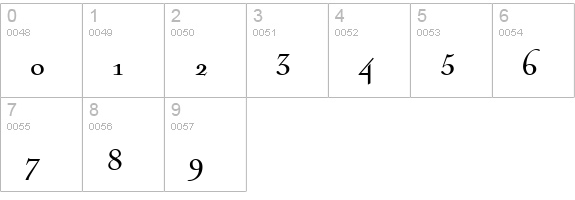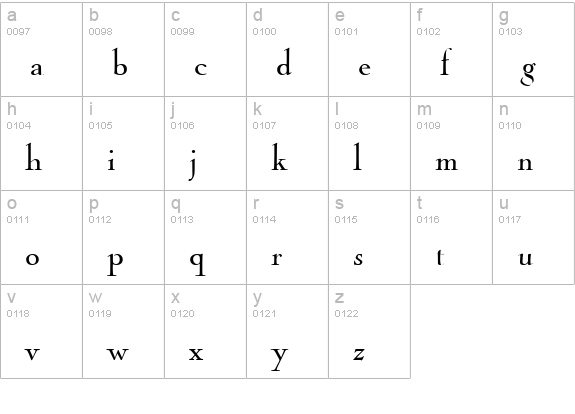
NicolasCocTEEReg Font Details
NicolasCocTEEReg is a stunning and versatile font that effortlessly blends sophistication with a touch of playfulness. Its elegant curves and clean lines make it perfect for a wide range of design projects, from branding to invitations to web design. This font exudes a sense of modernity and creativity, making it a standout choice for those looking to make a bold statement. The best part? NicolasCocTEEReg is completely free to download at FontsMarket.com. Whether you're a seasoned designer looking to add a fresh new font to your collection or a novice looking to experiment with typography, this font is sure to inspire and elevate your work. Don't miss out on the opportunity to enhance your designs with this beautiful and unique font - download NicolasCocTEEReg today and let your creativity soar.